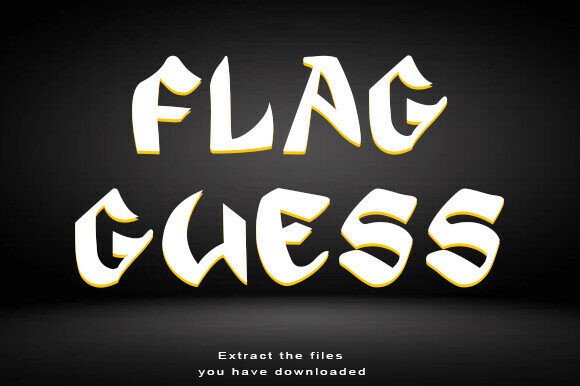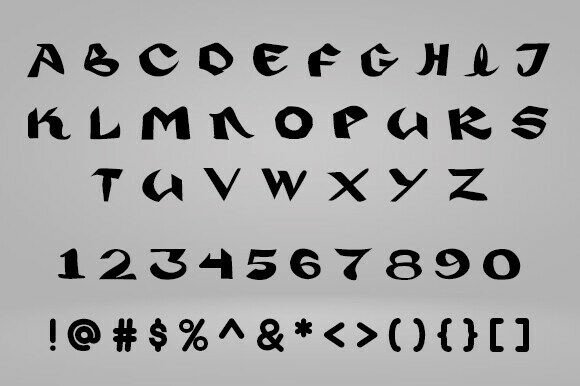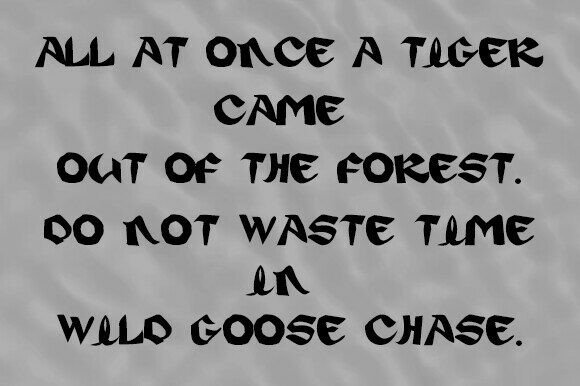
Flag Guess Font: A Bold Display Font for Urban & Sport Logos
About the Flag Guess Font
Crafted with precision, the Flag Guess Font is ready to bring your ideas to life. Flag Guess is a dynamic, edgy font with stylized angles and a graffiti-like spirit. This font is perfect for urban branding, sports team logos, or any project that calls for a powerful visual impact. With a bold presence and striking character shapes, it adds flair and energy to your designs.
Flag Guess Font excels in headlines, logos, and short, impactful phrases. Its strong visual presence makes it ideal for posters, packaging for edgy products, and streetwear branding. However, its highly stylized nature makes it unsuitable for body text or lengthy paragraphs; readability suffers at smaller sizes.
Pairing Flag Guess with a clean sans-serif like Open Sans for body copy provides a strong contrast and balances its aggressive energy. For a more sophisticated feel, consider a geometric sans-serif like Futura, or a classic serif like Garamond for a touch of refined contrast.
The overall personality of Flag Guess is bold, rebellious, and energetic, reflecting a youthful and dynamic brand aesthetic. Avoid pairing it with overly decorative or whimsical fonts, as this would dilute its unique character.
Flag Guess Font Example